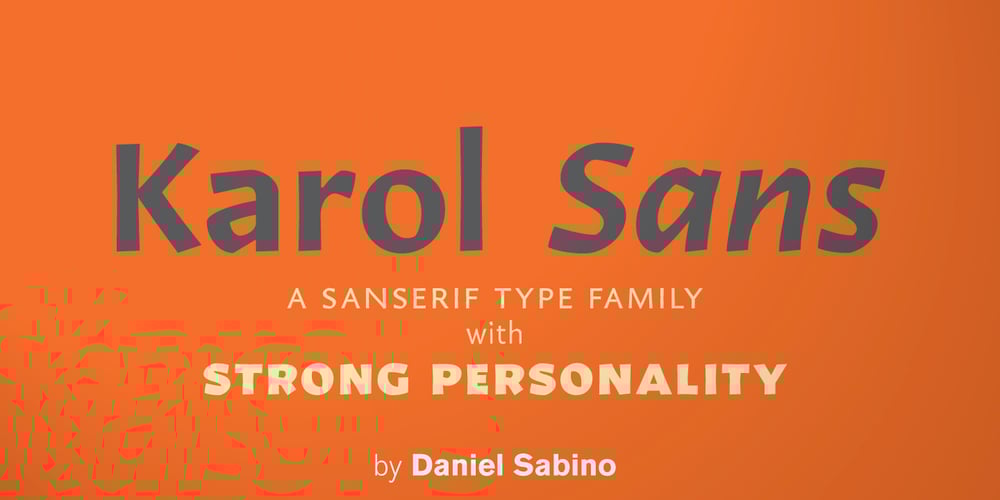
Karol Sans Font Family was designed by Daniel Sabino and published by Type-Ø-Tones. Karol Sans contains 12 styles and family package options. Karol Sans is the perfect companion for Karol, without being a literal translation of it. It has its own personality and offers a wider range of six weights and their italics which gives it added versatility. It has all the indispensable OpenType features for a text typeface like Small Capitals, different sets of figures, fractions and many others. The character set supports Latin, Central European, Baltic and Turkish languages.